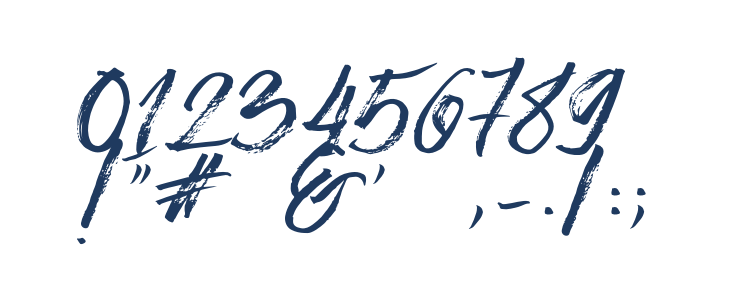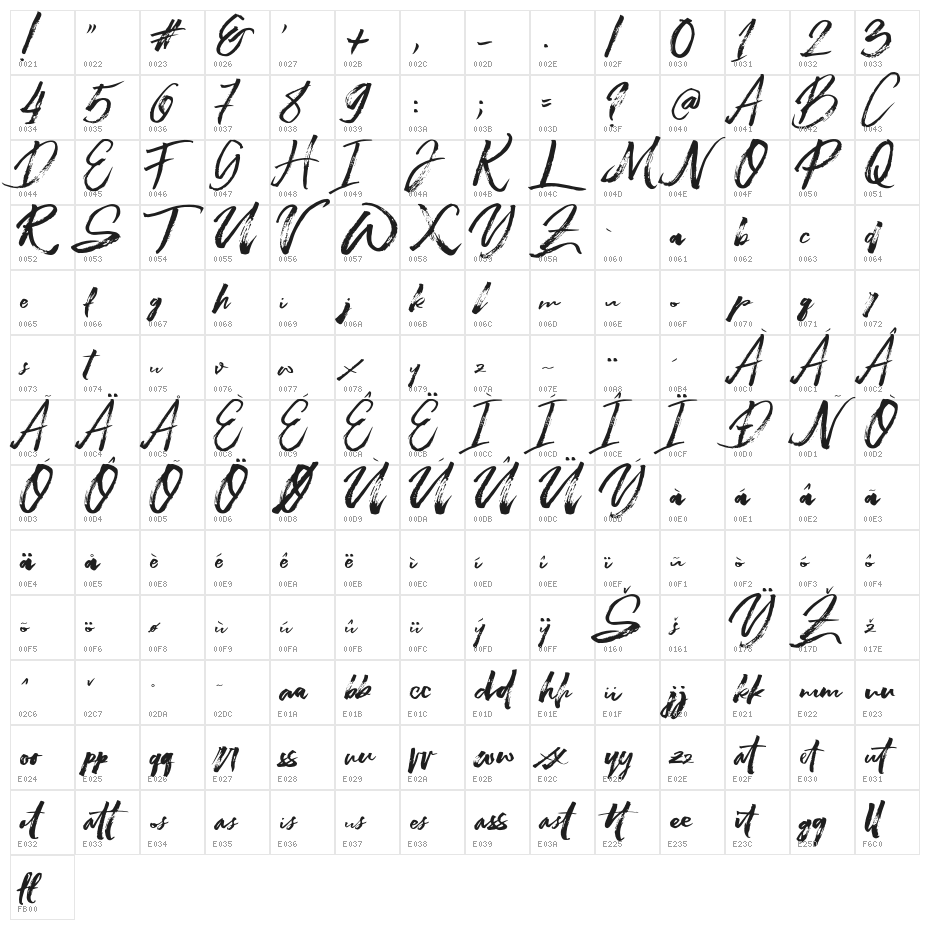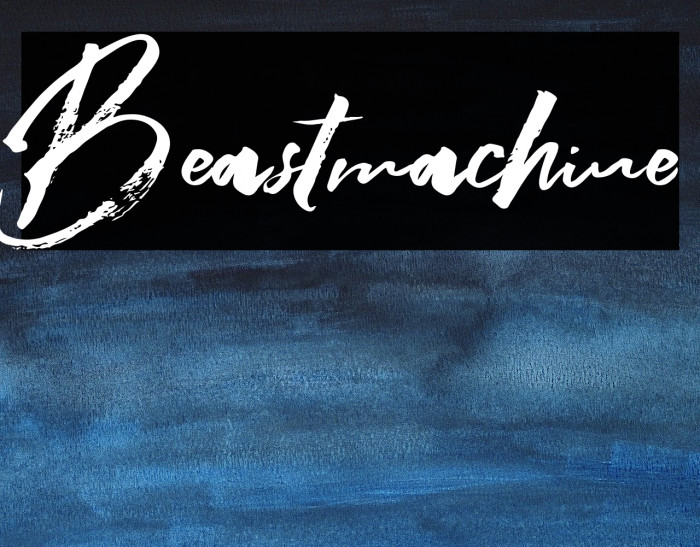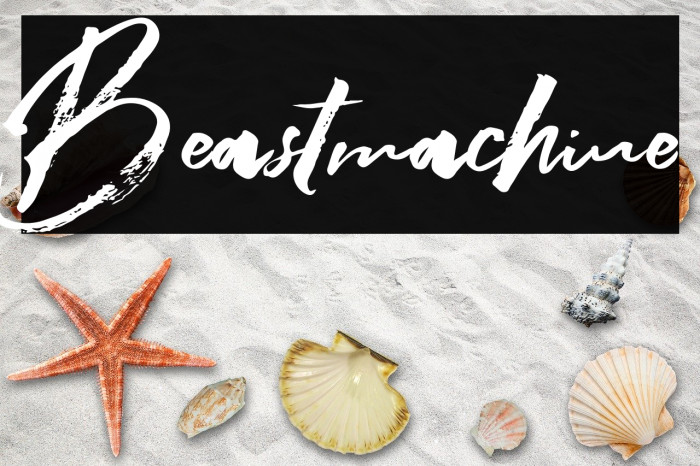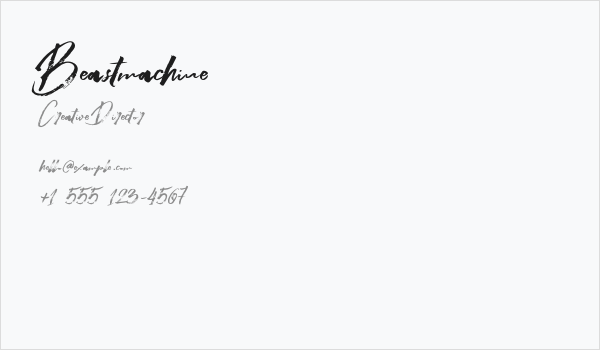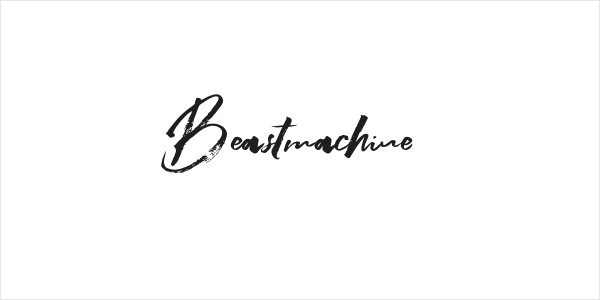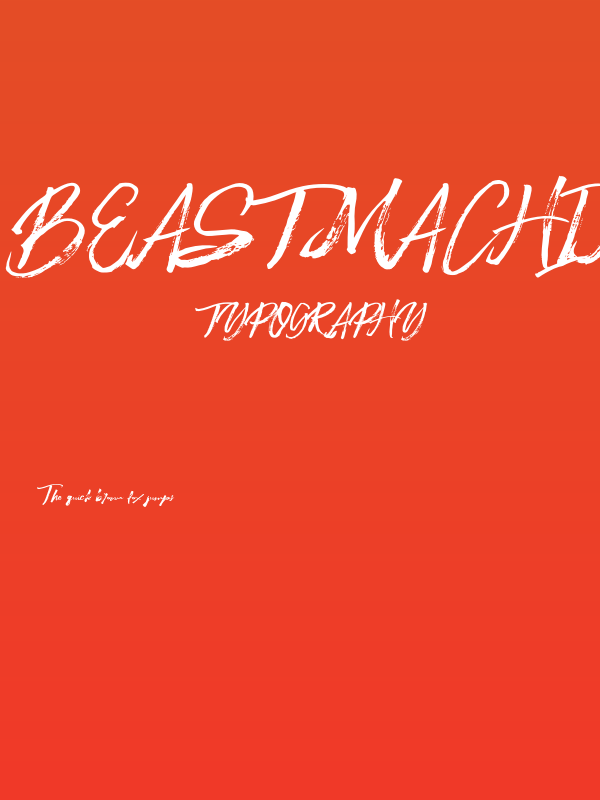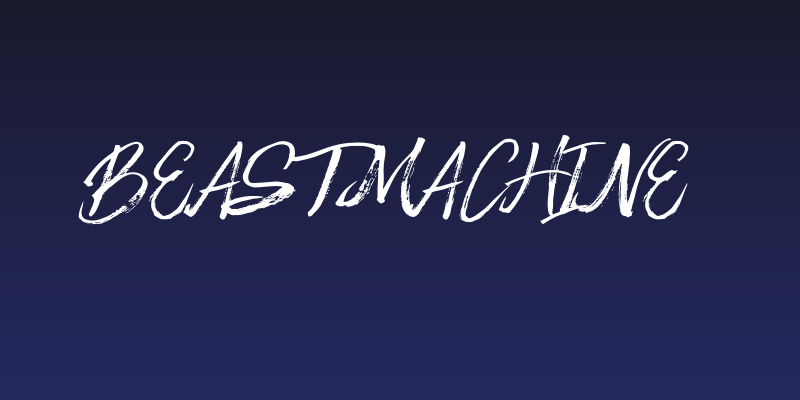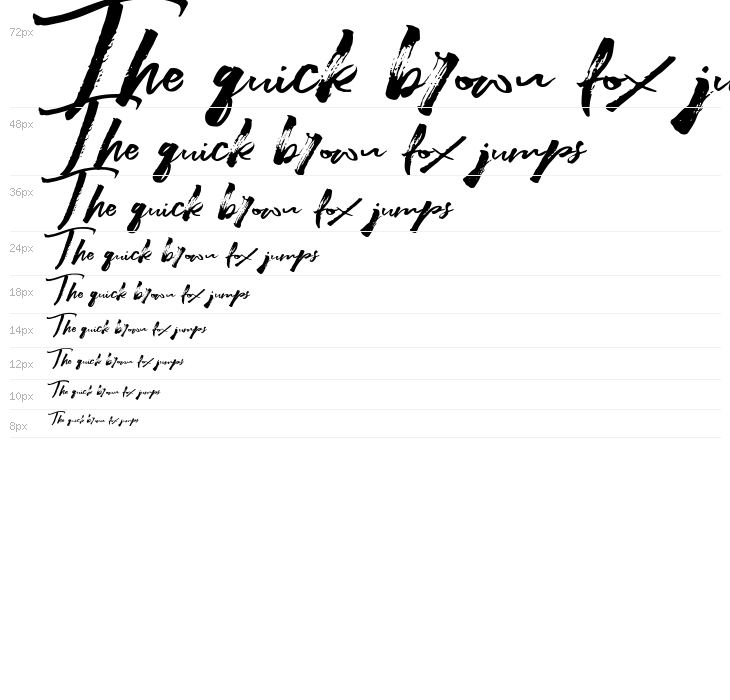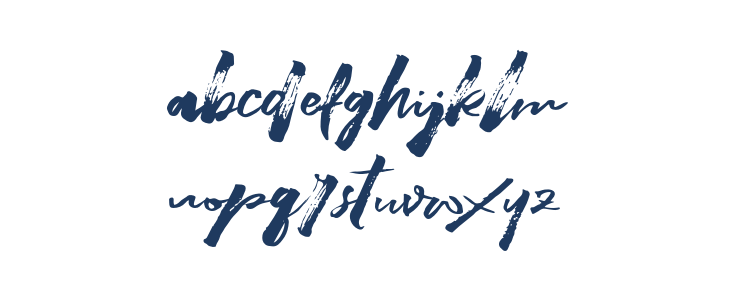
Beastmachine Font
Beastmachine Description
This font exhibits a dynamic and expressive brush script style, characterized by its bold, sweeping strokes and textured appearance. The uppercase letters are particularly striking, with a sense of movement and energy that suggests a hand-painted aesthetic. The lowercase letters maintain this fluidity, offering a cohesive look across the alphabet. The numbers and special characters are equally bold, ensuring consistency throughout. The font's irregular edges and varying stroke widths contribute to its artistic and spontaneous feel, making it ideal for projects that require a personal and creative touch.
| Use Case | Logos, Headlines, Posters |
| Proposed Projects | Ideal for creative projects such as posters, branding, packaging, and invitations where a personal and artistic touch is desired. |